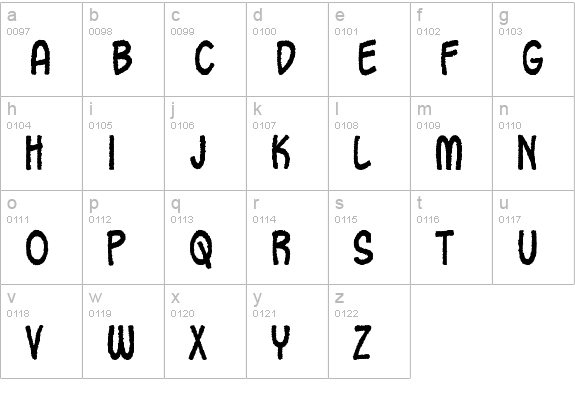
Oh Crap Font Details
Oh Crap font is a quirky and playful typeface that adds a touch of whimsy to any design project. With its unique and eye-catching letters, this font is perfect for creating attention-grabbing headlines, posters, and social media graphics. The irregular shapes and uneven lines give Oh Crap font a hand-drawn feel that exudes charm and creativity. Best of all, Oh Crap font is completely free to download at FontsMarket.com. Whether you're a designer looking to add some personality to your work or a hobbyist wanting to spice up your personal projects, Oh Crap font is a versatile and fun choice. Don't miss out on this opportunity to enhance your designs with this free and fabulous font!